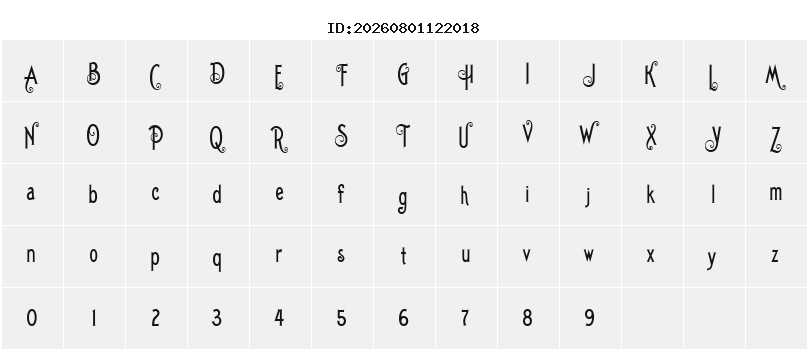
LHF Billhead 1910 Preview
About LHF Billhead 1910.ttf
LHF Billhead 1910.ttf is a modern, elegant sans-serif font designed for ultimate readability and visual harmony. Perfect for branding, headlines, web design, and print materials.